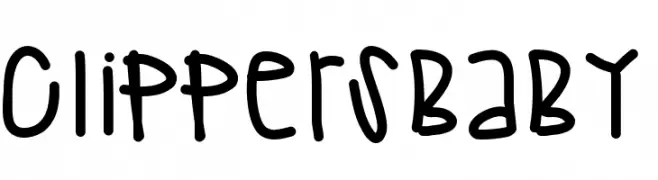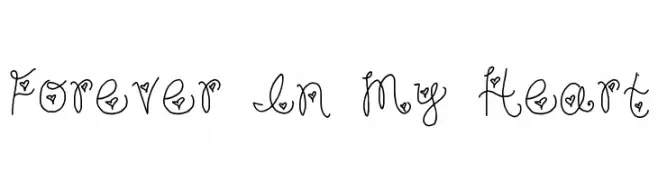
A bold, playful script font with a friendly and inviting style.
A playful, casual handwritten font with smooth, flowing curves.
A playful, handwritten font with a casual and dynamic style.
A playful handwritten font with a casual and friendly style.
A playful, hand-drawn font with bold, rounded strokes.